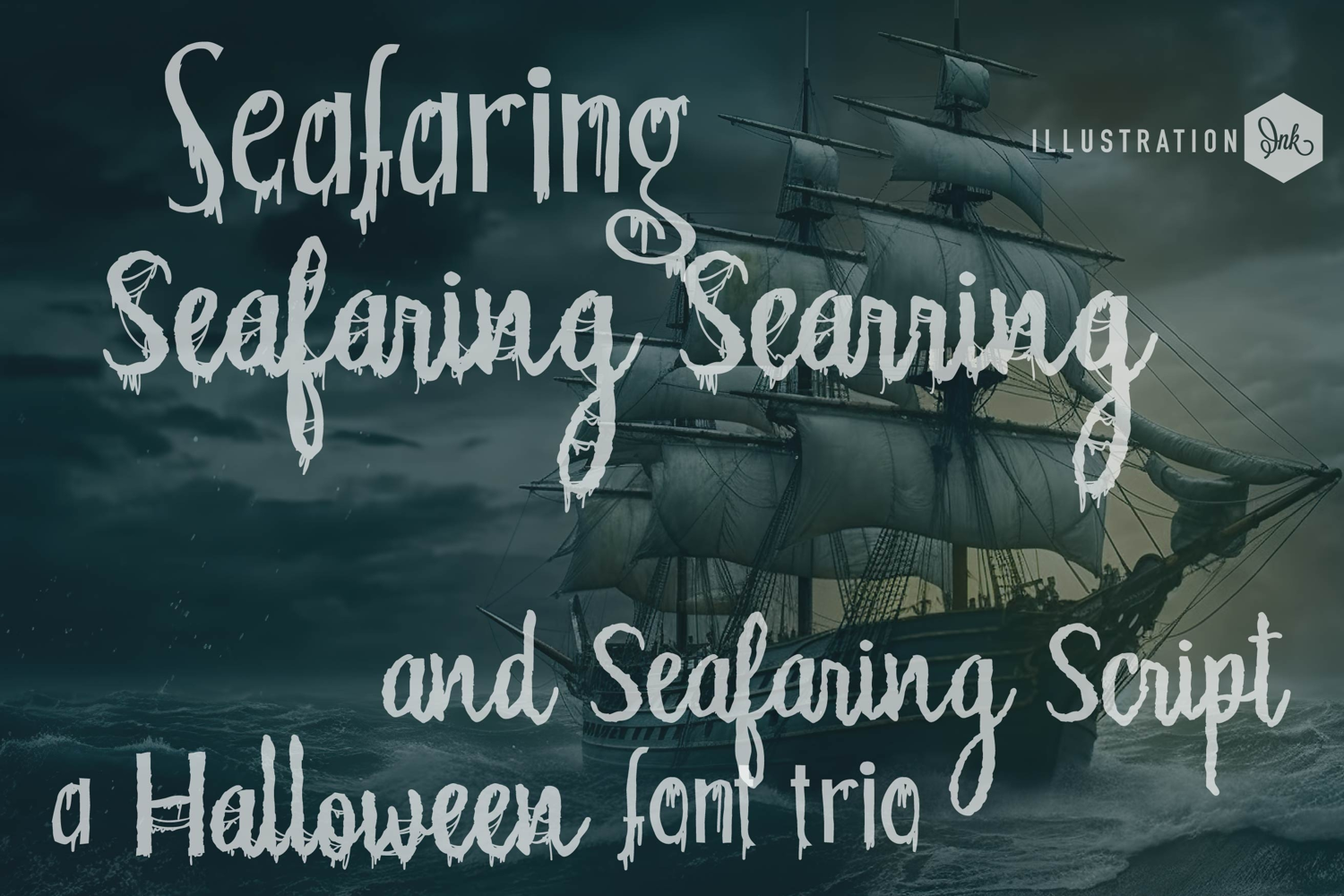
Seafaring Scarring Font Trio
This hand-crafted font trio combines a drippy, messy, sans serif with a perfectly coordinated script and a scary, drippy version of the same script. With all family members combined of the 3 fonts, you get 9 fonts all together!
Hand-crafted fonts can be either formal or informal, and they can be used for a variety of purposes. Some of the characteristics of handwritten fonts include: The letters are not perfectly uniform in size or shape. There may be slight variations in the spacing between letters and words. The font may have a "wiggly" or "squiggly" appearance. The font may be difficult to read at small sizes. Handwritten fonts can be a great way to add a casual touch to your designs. They can also be used to create a sense of nostalgia or whimsy. However, it is important to choose a handwritten font that is appropriate for the project you are working on. A formal handwritten font may not be appropriate for a casual invitation, while an informal handwritten font may not be appropriate for a corporate document.
• The letters are not perfectly uniform in size or shape.
• There may be slight variations in the spacing between letters and words.
• The font may have a "wiggly" or "squiggly" appearance.
• The font may be difficult to read at small sizes.